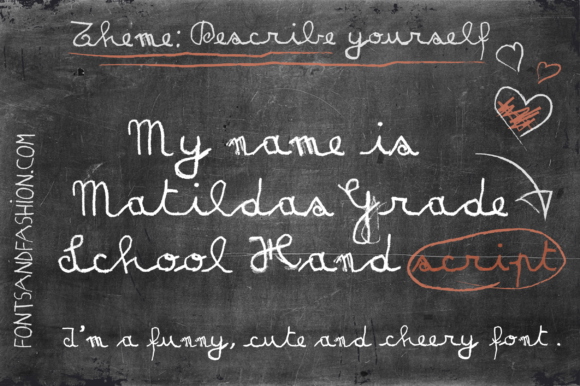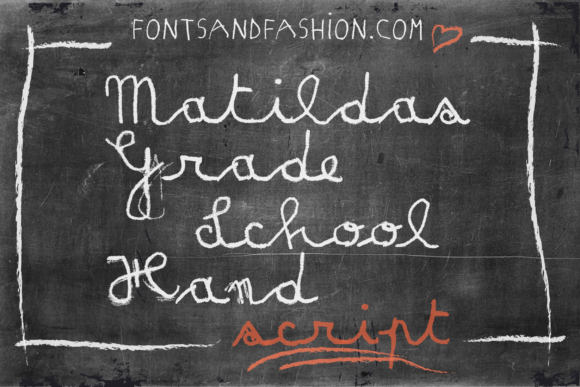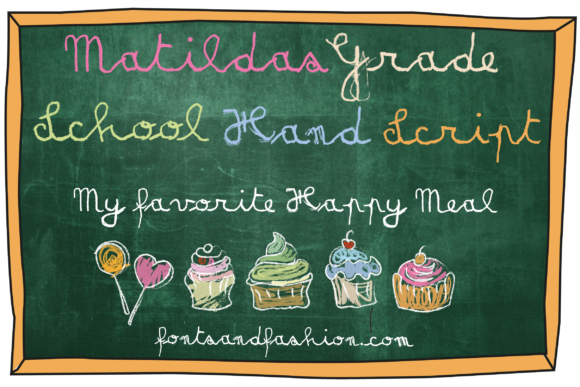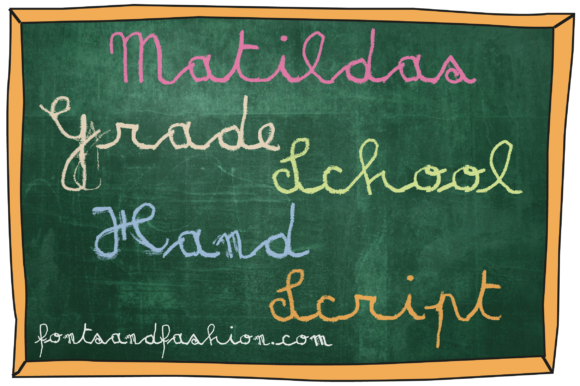
Matilda’s Grade School Hand Script Font
About the Matilda’s Grade School Hand Script Font
From logos to headlines, the Matilda’s Grade School Hand Script Font is the perfect choice for making a lasting impression. Matilda’s Grade School Hand Script is a font with a childlike style. It’s a cursive chalk font, inspired by primary school handwriting!
This font’s playful, informal style works best for projects needing a youthful, friendly touch. Ideal applications include children’s books, invitations to birthday parties or school events, and branding for businesses targeting a younger demographic. It’s also suitable for short headlines or playful social media graphics. However, avoid using it for body text or lengthy paragraphs; its informal nature and potential for low legibility at smaller sizes make it unsuitable for extended reading.
Matilda’s Grade School Hand Script pairs well with clean sans-serif fonts like Open Sans or Lato for a balanced contrast. For a more sophisticated feel, consider pairing it with a classic serif such as Garamond or a slightly more playful geometric sans-serif like Montserrat. Avoid pairing it with other script fonts, as this would create visual clutter and reduce readability.
The overall personality is undeniably cheerful and approachable, conveying a sense of innocence and fun. Its slightly uneven, hand-drawn quality adds to its charming, informal character.
Matilda’s Grade School Hand Script Font Usage Examples
Matilda's Grade School Hand Script Font Example